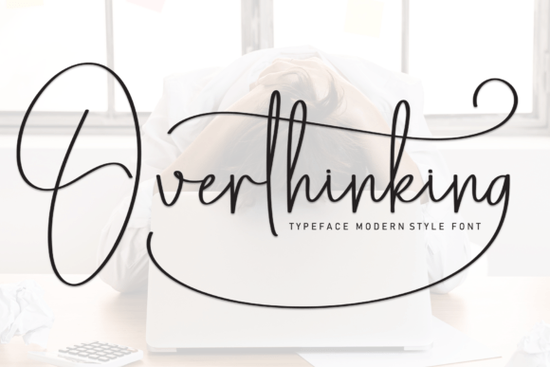
If you’ve ever scrolled through dozens of script fonts looking for one that feels both personal and polished, the Overthinking Font might be exactly what your project needs. It’s a delicate, elegant handwritten style with balanced letterforms that work beautifully across everything from wedding invitations to printable wall art. Unlike overly ornate scripts that can feel cluttered, Overthinking strikes a clean, readable balance making it a reliable go-to for designers, crafters, and small business owners who want charm without chaos.
What sets this font apart is how naturally it flows. Each character has subtle variations that mimic real handwriting, but without sacrificing legibility. That makes it especially useful for projects where tone matters think heartfelt greeting cards, boutique packaging, or even quote-based merch for print-on-demand shops. You don’t need heavy embellishments to convey warmth; sometimes, a well-crafted stroke does the job.
When should you use a delicate handwritten font like Overthinking?
Handwritten fonts shine in contexts that call for authenticity and approachability. Consider using Overthinking for:
- Personalized gifts – mugs, tote bags, or journals with custom names or short messages
- Branding elements – logos, social media quotes, or email signatures for lifestyle or wellness businesses
- Event stationery – save-the-dates, place cards, or menu designs for intimate gatherings
- Digital planners and worksheets – where a friendly, human touch encourages engagement
Because of its refined thin strokes, it’s best paired with ample white space and used at larger sizes (18pt or above) for digital readability. Avoid using it for body text or tiny labels it’s a display font first and foremost.
How does it compare to other popular script fonts?
If you’ve explored Creative Fabrica’s script collection, you’ve likely come across alternatives like Sunlight Font, which leans more bouncy and casual, or Genty Font, known for its smooth, connected cursive flow. Overthinking sits somewhere in between: less playful than Sunlight, less formal than Genty, but equally versatile.
For a rustic-meets-modern vibe, you might also consider Farmhouse Font, which pairs well with textured backgrounds and vintage aesthetics. Meanwhile, Shina Qatline Font offers dramatic swashes if you’re aiming for high-impact elegance something Overthinking intentionally avoids in favor of subtlety.
And if your brand leans into cozy, minimalist trends (think matcha lattes and linen aprons), The Matcha Club Font shares a similar understated charm, though with slightly rounder terminals. Overthinking, by contrast, has sharper, more tapered ends that give it a quietly sophisticated edge.
Practical tips for getting the most out of Overthinking Font
To make your designs look intentional not accidental follow these guidelines:
- Use generous tracking: Slightly increase letter spacing to let those fine lines breathe.
- Pair with a neutral sans-serif: Try pairing it with fonts like Montserrat or Lato for contrast in headings vs. body copy.
- Avoid busy backgrounds: Delicate scripts disappear on patterned or dark textures. Stick to light, solid colors.
- Test print quality: Thin strokes can vanish on low-resolution printers. Always do a physical proof if selling printed goods.
Remember, less is often more. One well-placed line in Overthinking can carry more emotional weight than an entire paragraph in a bolder font.
- ✅ Do you need a font for short, expressive text not long paragraphs?
- ✅ Are you designing for digital displays or high-quality print (not embroidery or vinyl cutting with tiny details)?
- ✅ Does your project benefit from a calm, thoughtful aesthetic rather than bold energy?
If you answered yes to most of these, Overthinking Font could become a quiet staple in your creative toolkit one you’ll reach for again and again when simplicity speaks louder than flair.